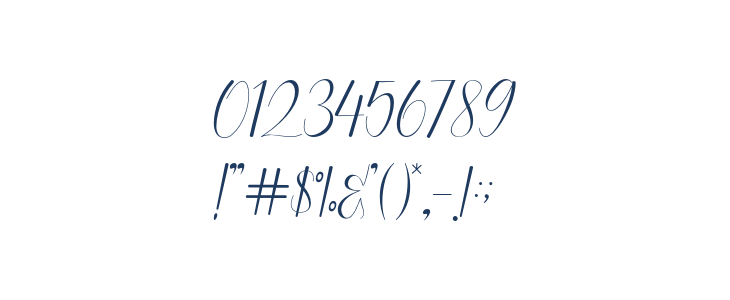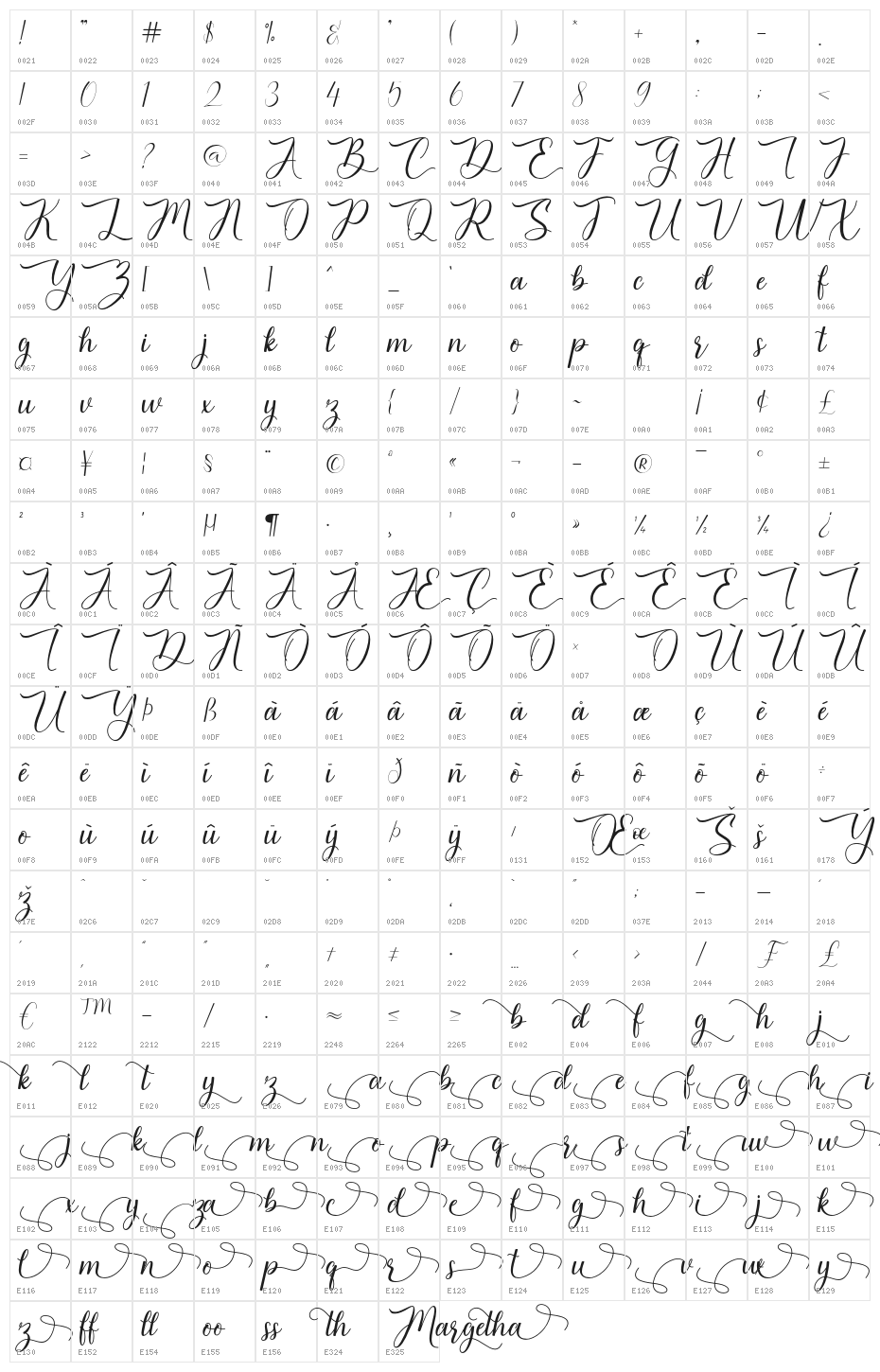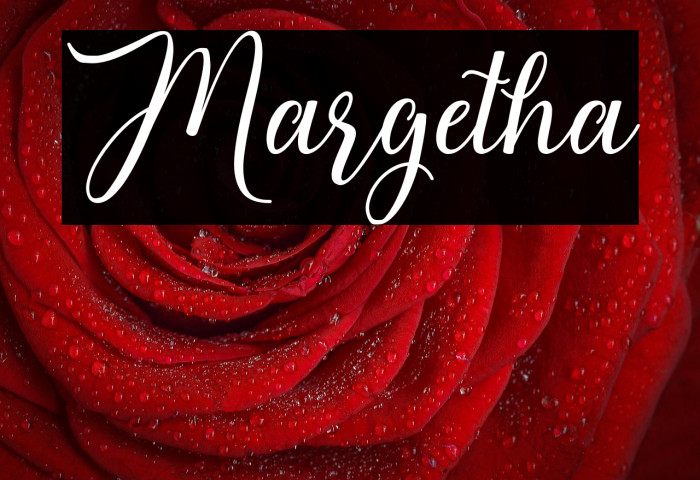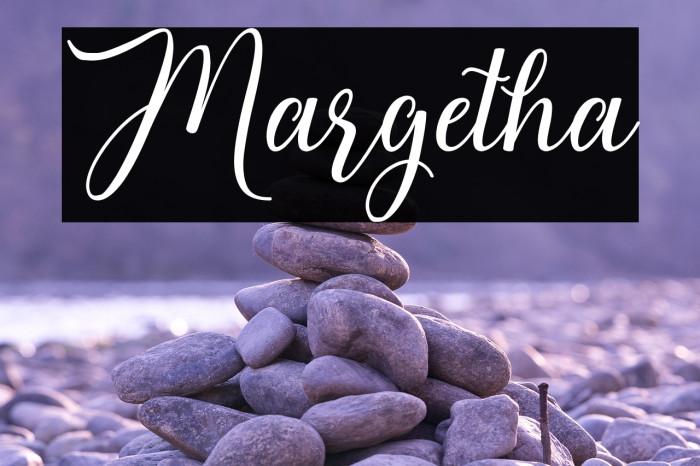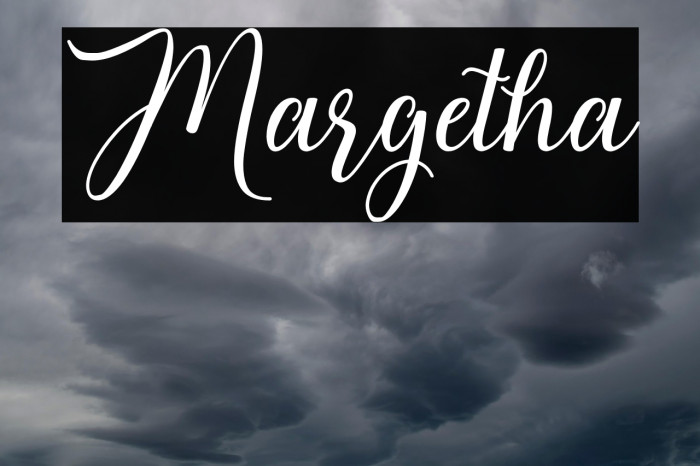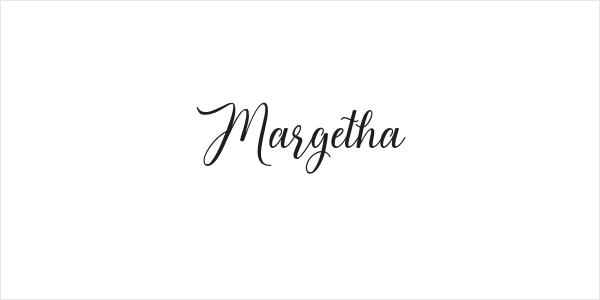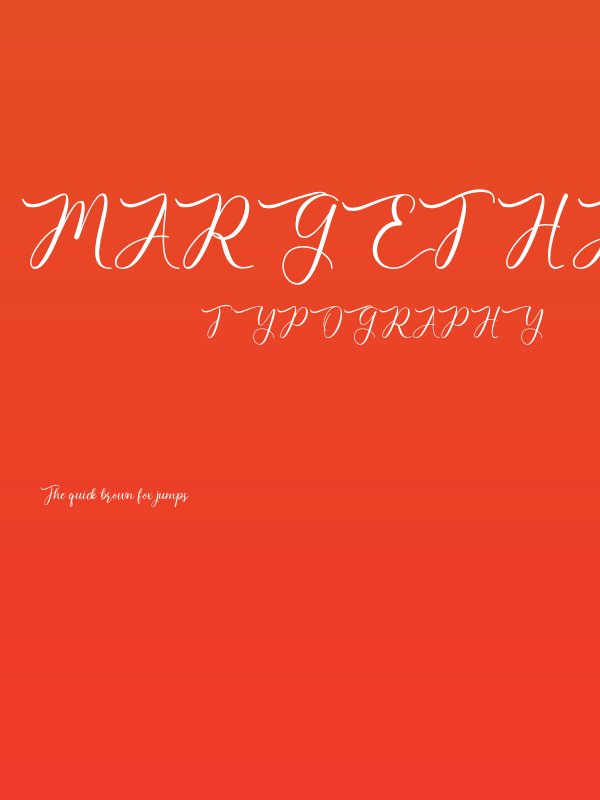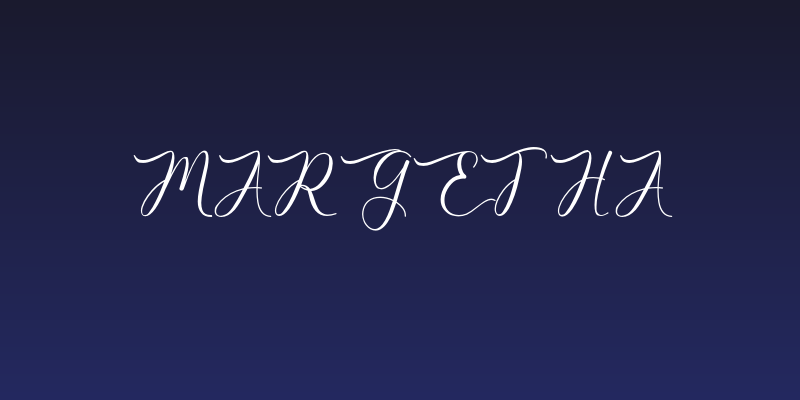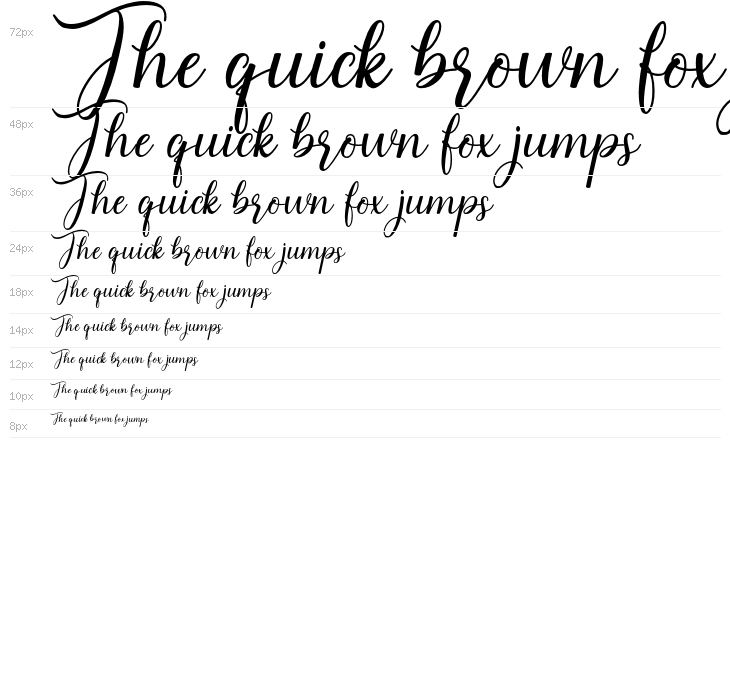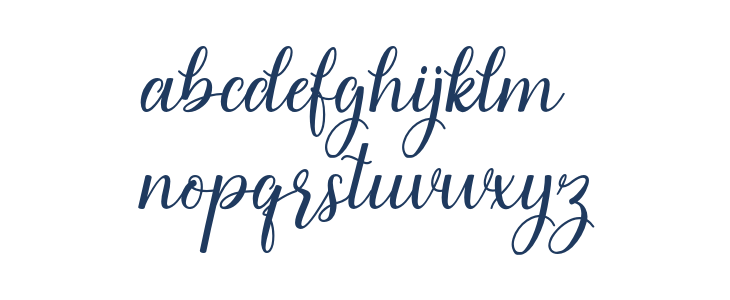
Margetha Font
Margetha Description
This font exudes elegance and sophistication with its flowing, cursive style. The uppercase letters are slender and graceful, featuring delicate loops and swirls that give a sense of fluidity and movement. The lowercase characters are bold and more pronounced, maintaining the cursive theme with smooth, connected strokes. The numerals are stylishly integrated, matching the overall aesthetic with their sleek and slightly italicized form. Special characters are thoughtfully designed, complementing the script with their artistic flair. This font is perfect for projects that require a touch of class and refinement.
| Overall Style | Elegant, Sophisticated |
| Use Case | Headlines, Invitations, Branding |
| Proposed Projects | Ideal for wedding invitations, elegant branding, luxury product packaging, and high-end fashion editorials. |